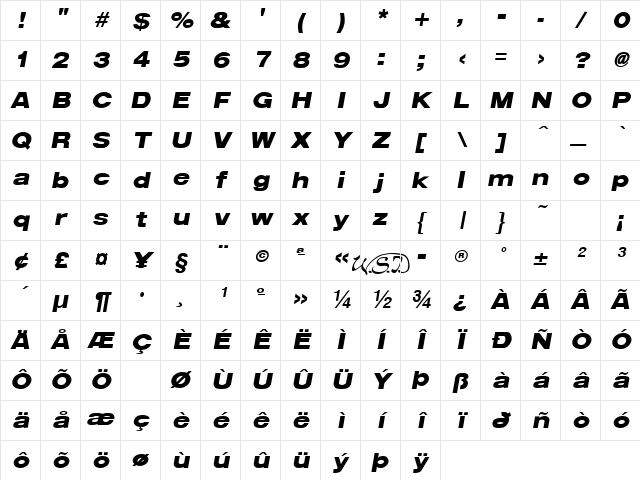
Arena Black Extended Italic
Design Context for Arena Black Extended
Arena Black Extended is a composed and adaptable typeface that performs quietly and consistently across a wide range of design contexts. The slanted form adds forward momentum and visual energy.
Pro Tip: Use Arena Black Extended for emphasis, pull quotes, and subheadings where its slanted energy can add rhythm to the layout.